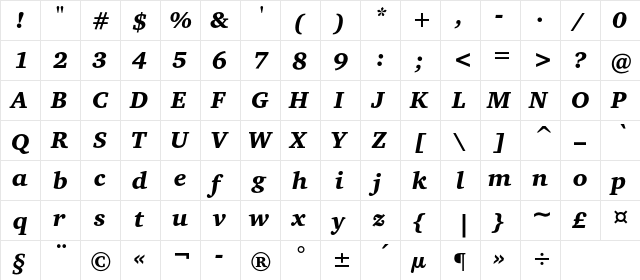
CharterBlackC Italic Font Preview
CharterBlackC Italic
Design Context for CharterBlackC Typeface
CharterBlackC takes a measured approach to typography — its balanced proportions and neutral character make it a reliable workhorse for both digital and print work. The slanted form adds forward momentum and visual energy.
Pro Tip: Use CharterBlackC for emphasis, pull quotes, and subheadings where its slanted energy can add rhythm to the layout.